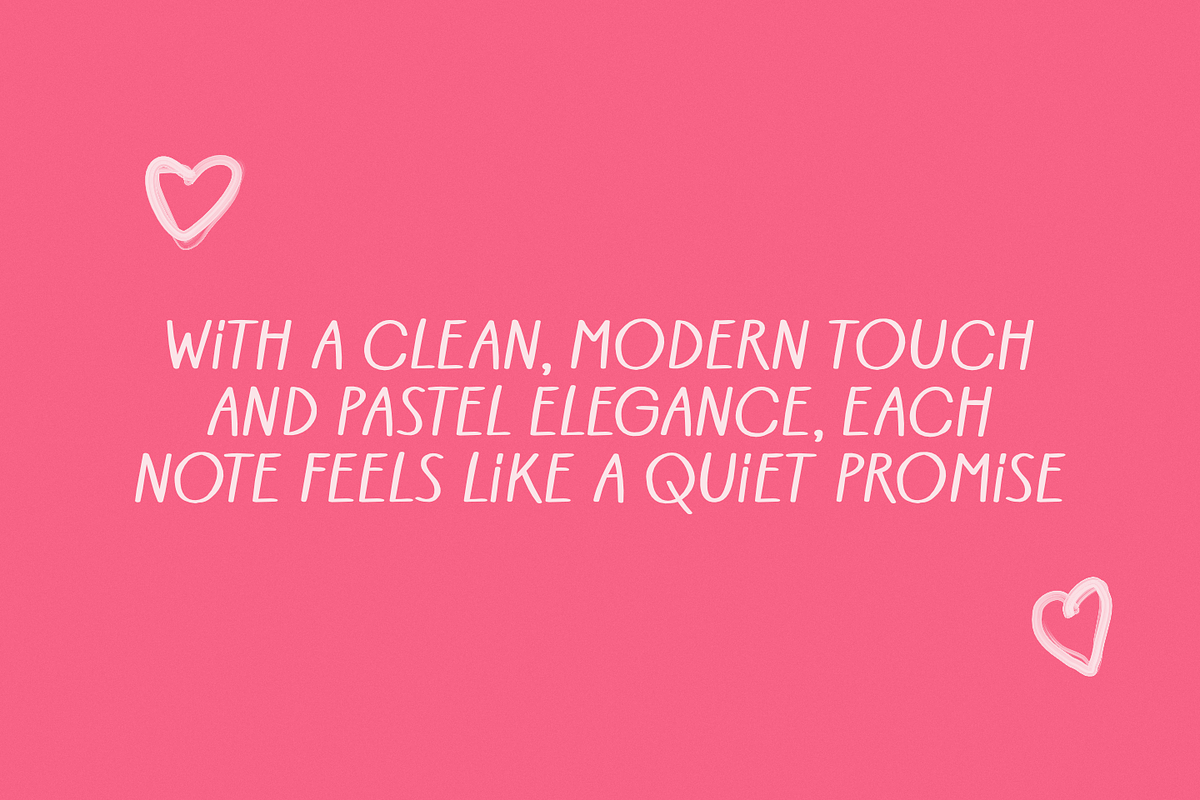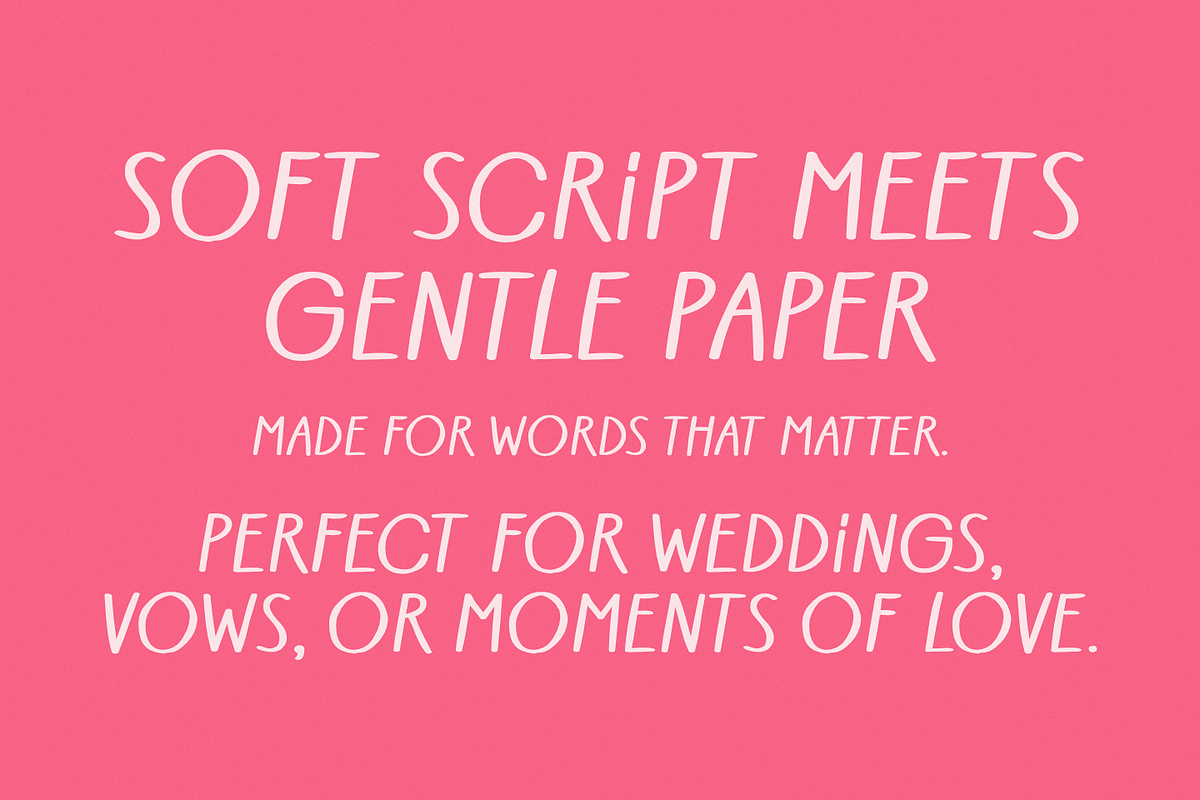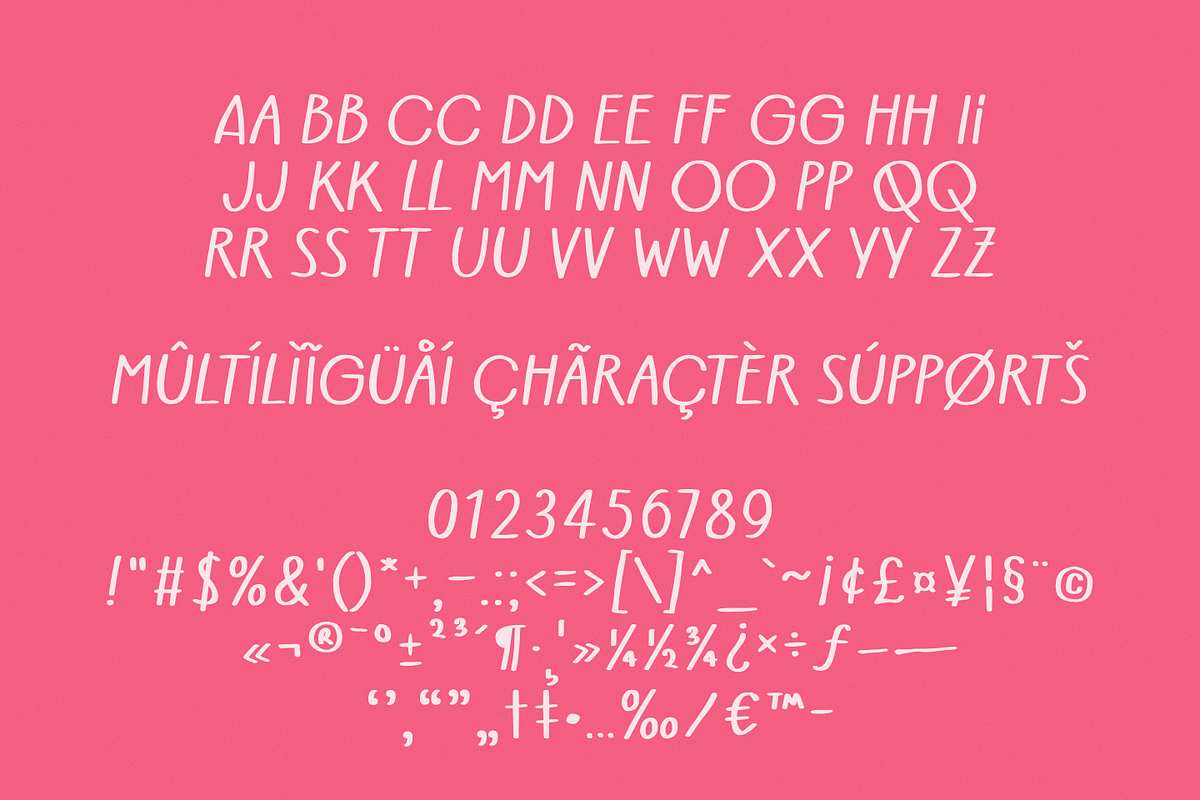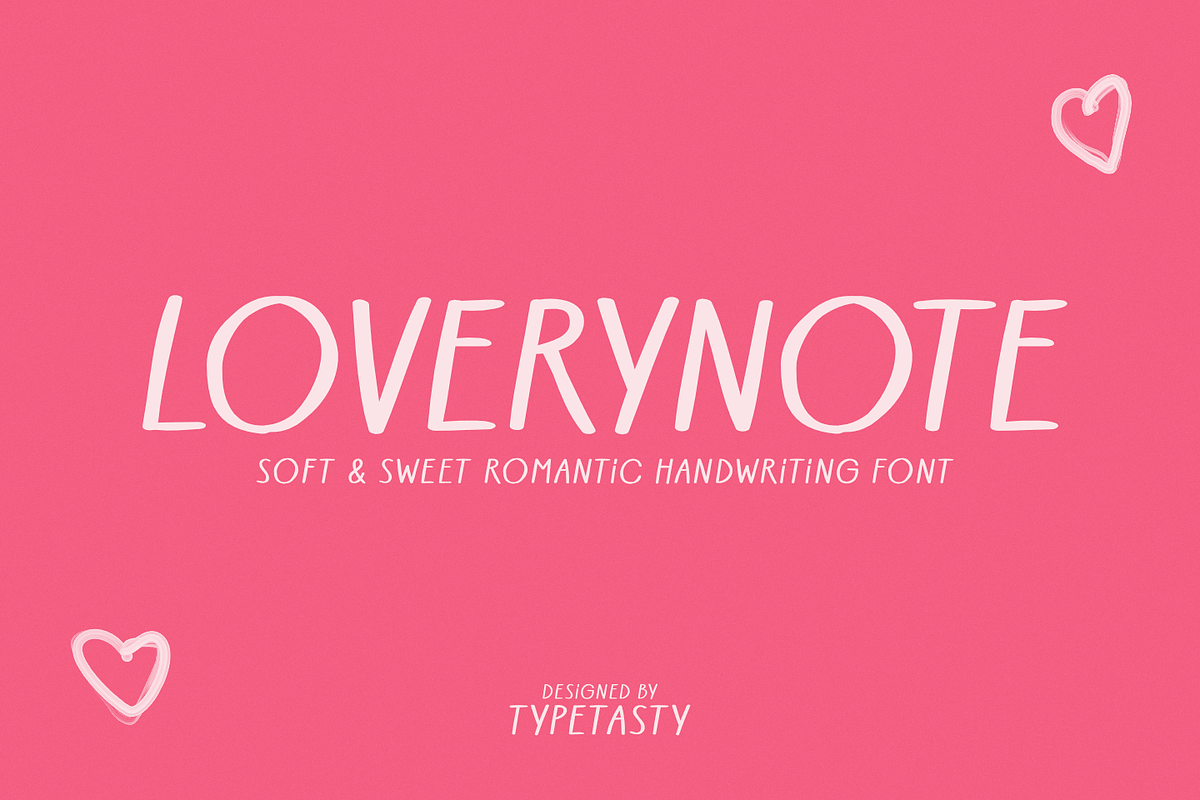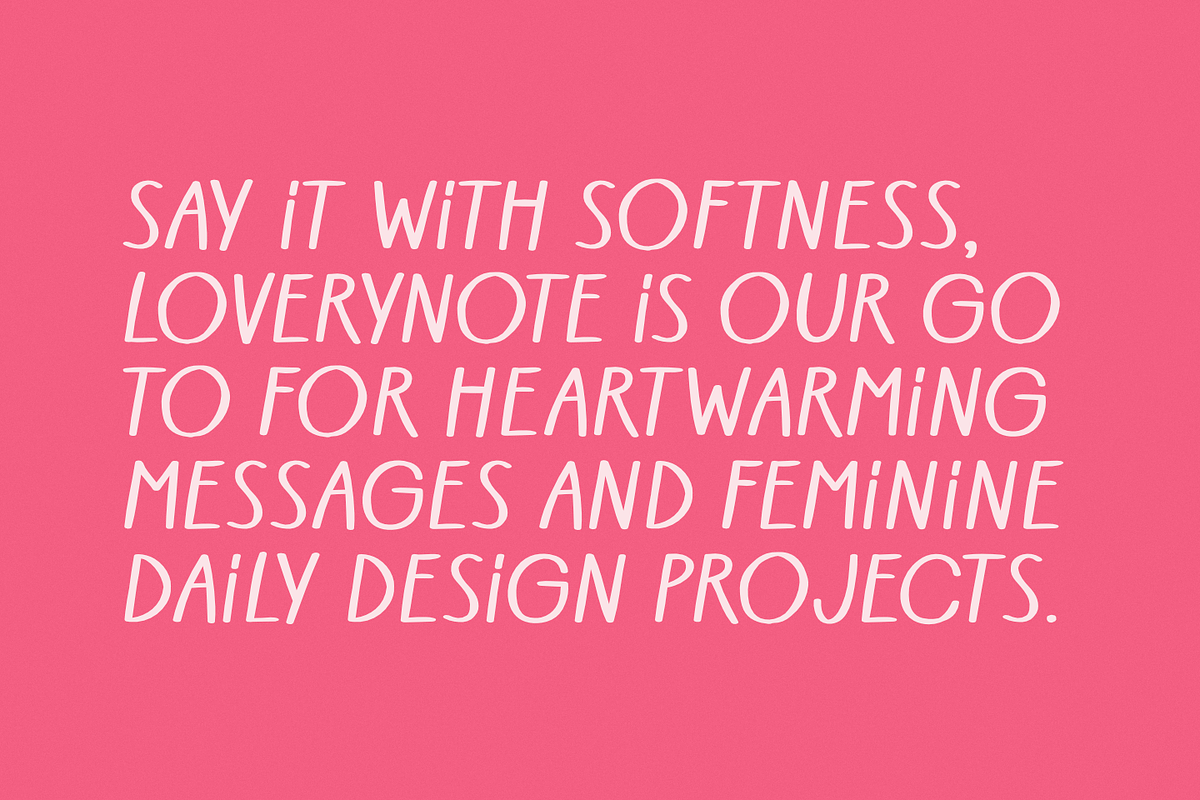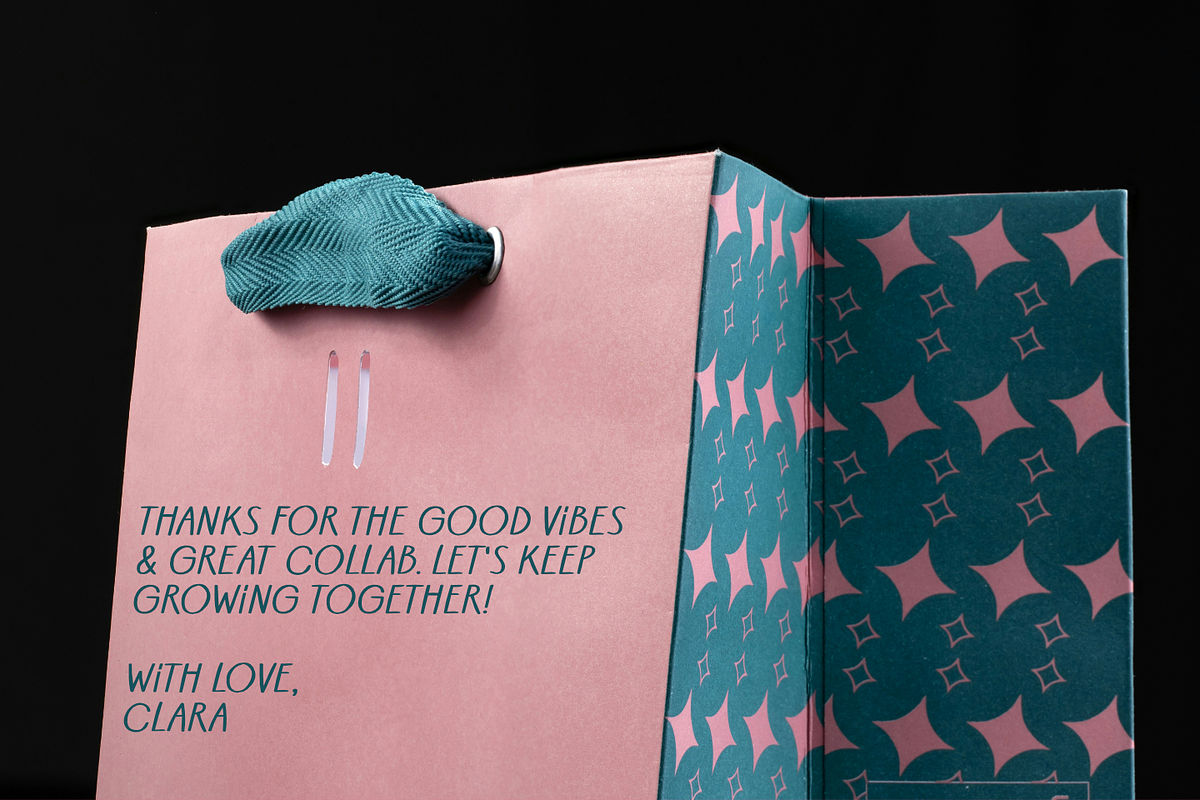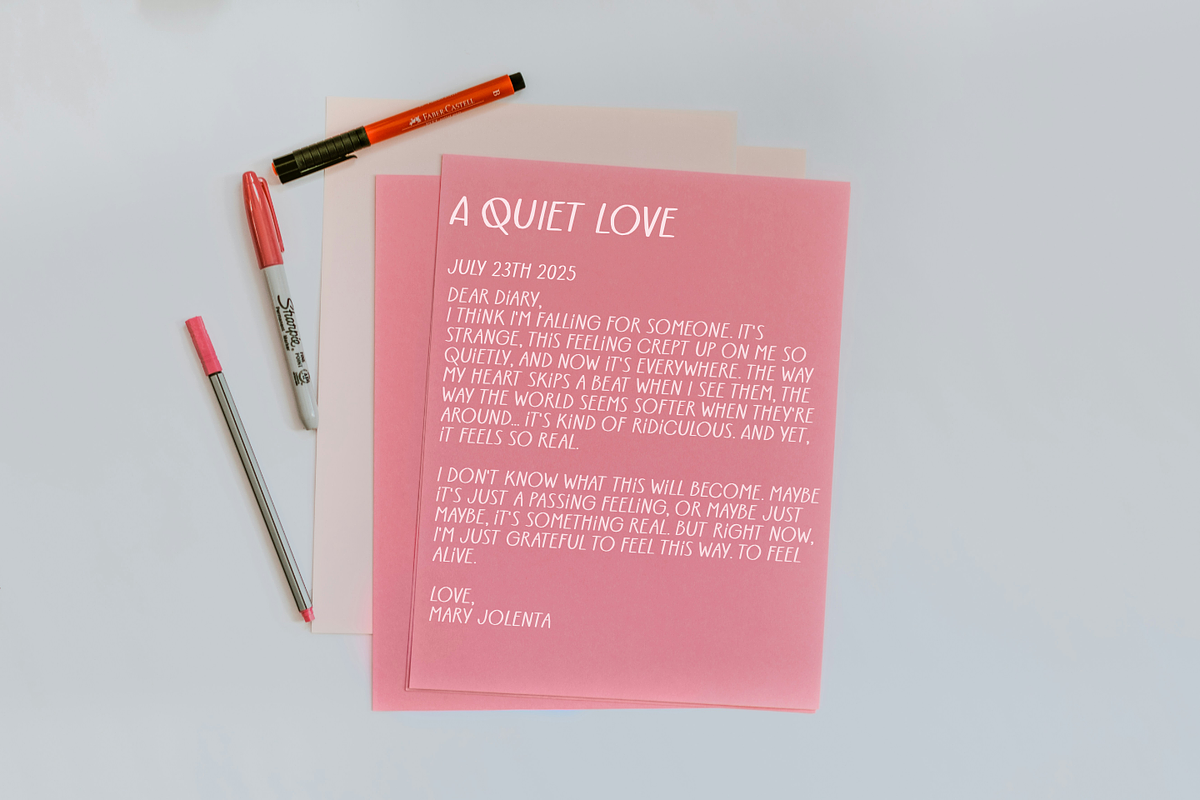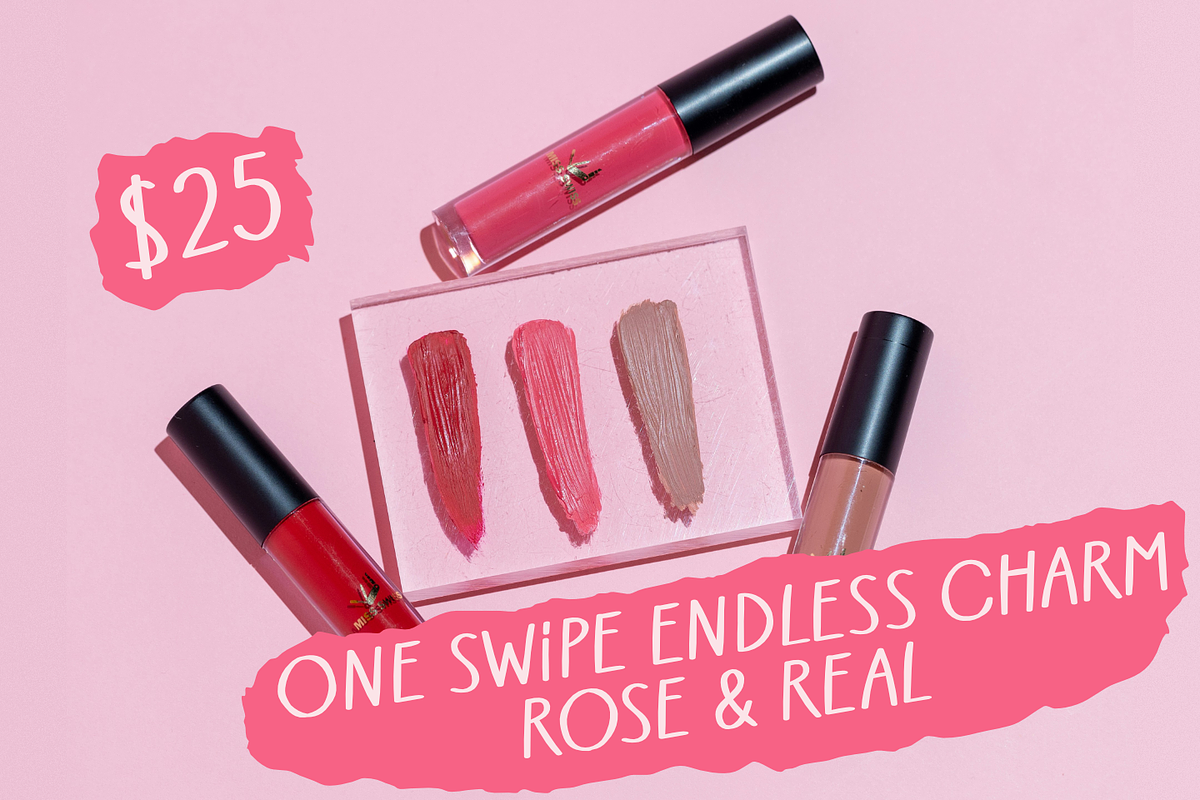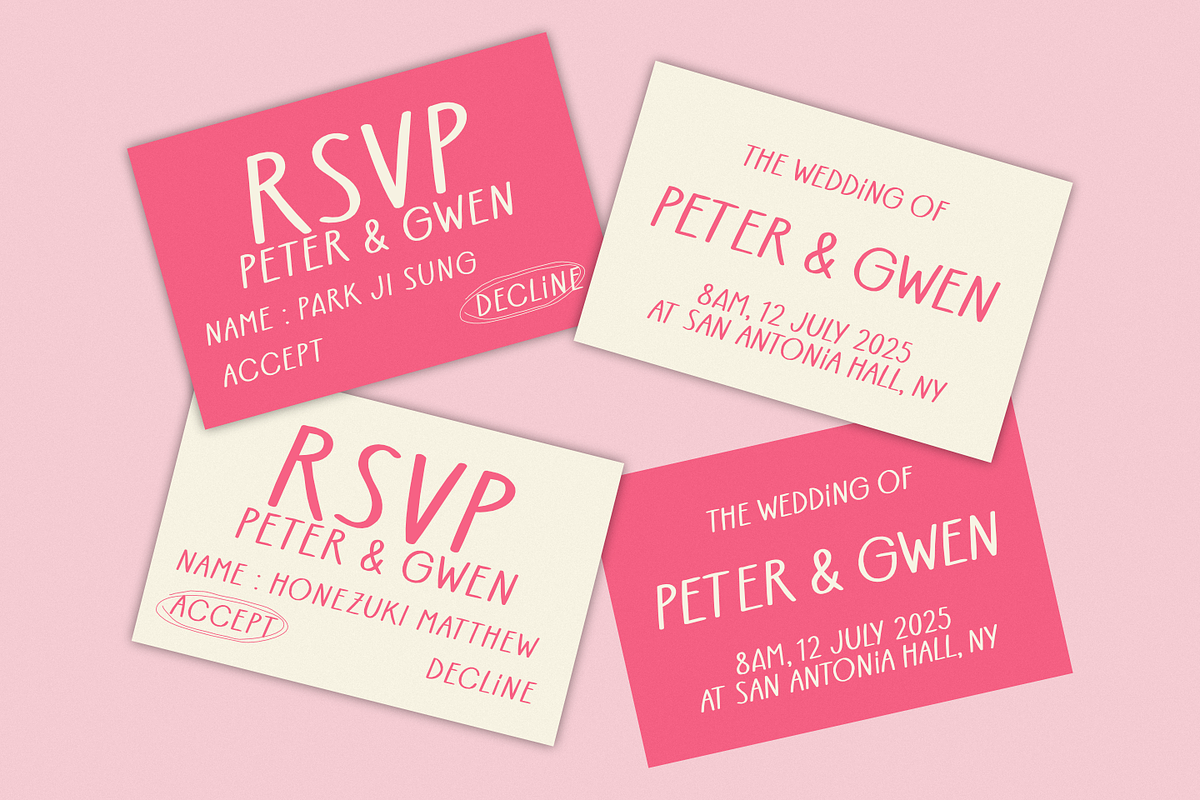
Loverynote – Soft Handwriting Font
Loverynote is a romantic handwritten font with a soft and elegant style, perfect for love letters, social media quotes, and feminine branding. Its flowing, slightly slanted characters bring charm and warmth to any design, whether it’s wedding invitations, gift tags, or personal journals. With Loverynote, you can express emotion effortlessly in a clean, minimal, and beautifully human way. Loverynote brings a delicate handwritten touch to your words—evoking affection, warmth, and sincerity. With its smooth curves and casual elegance, this font feels like a personal message on a love letter or a sweet note passed between friends.
Font style & energy: Soft, romantic, gentle, clean
Market vibe fit: Perfect for love-themed graphics, Instagram quotes, wedding stationery, greeting cards, feminine branding
Letterform structure: Slanted, semi-rounded handwritten sans with even flow and easy legibility
Best use cases:
- Wedding invitations & RSVP cards
- Social media captions & quotes
- Journals and moodboards
- Personalized gifts & labels
- Brand identity for lifestyle & feminine products
Loverynote captures the soft rhythm of affectionate handwriting—perfect for making your messages feel heartfelt and human. Whether you’re writing for love, friendship, or branding, this font adds emotional charm with effortless readability.
Romantic Yet Clean
- Delivers emotional expression without sacrificing legibility
- Ideal for both digital and print formats
Smooth Handcrafted Flow
- Letters feel natural, like gentle pen strokes
- Flows well in quotes, paragraphs, or headlines
Tailored for Feminine & Personal Brands
- Complements minimal layouts or pastel color palettes
- Adds a soft human element to your visuals